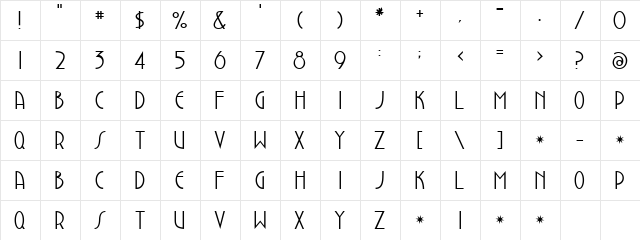
DustbowlClementine Regular
Design Context for DustbowlClementine Typeface
DustbowlClementine offers clean, dependable letterforms without strong stylistic allegiance, making it a practical choice for designers who need flexibility.